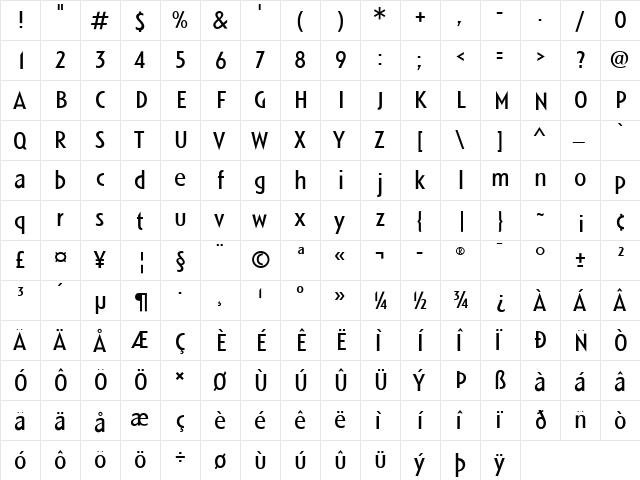
LTSpitz Book Regular
Design Context for LTSpitz Book Typeface
LTSpitz Book takes a measured approach to typography — its balanced proportions and neutral character make it a reliable workhorse for both digital and print work.